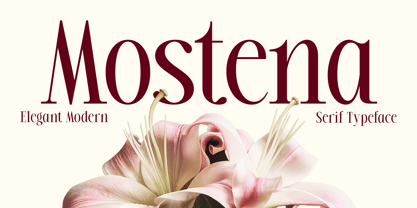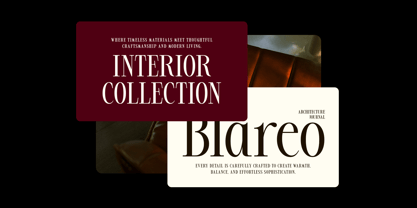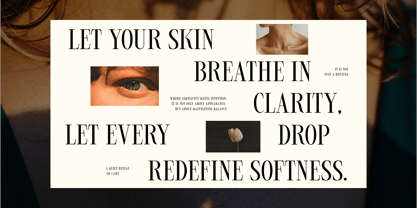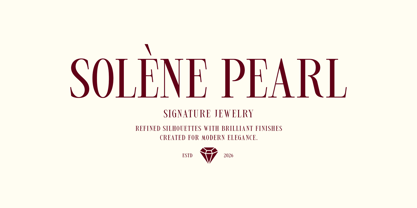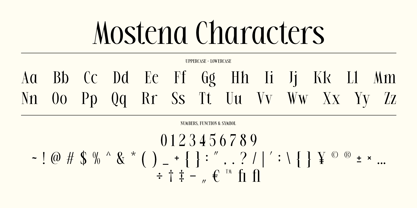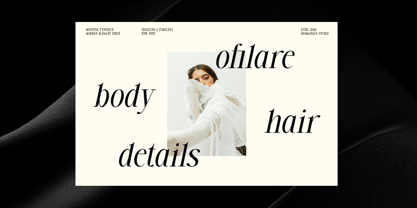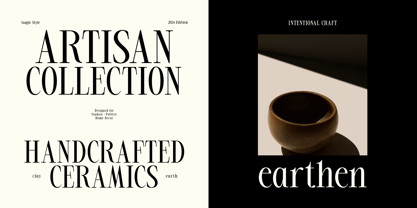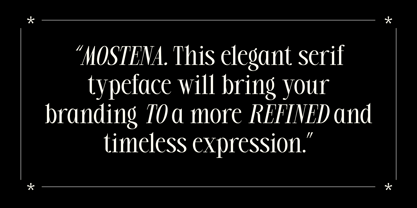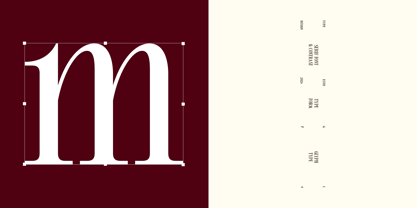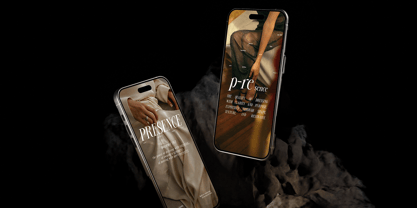
Mostena
by Jafar07
The Mostena Font Family was designed by Bakhrudin Ja'far and published by Jafar07. Mostena contains 2 styles and family package options. More about this family
Introducing Mostena, a modern, elegant serif typeface designed with refined proportions, graceful curves, and high-contrast letterforms. Blending timeless serif aesthetics with a contemporary touch, Mostena creates a sophisticated visual presence that is perfect for luxury branding, fashion editorials, beauty packaging, logos, magazines, invitations, websites, and premium marketing materials. Its balanced structure ensures excellent readability while maintaining a distinctive and stylish personality across both print and digital designs. Complete with multilingual support and elegant ligatures, Mostena is a versatile choice for designers seeking a refined serif font for a wide range of creative projects.
Designers: Bakhrudin Ja'far
Foundry: Jafar07